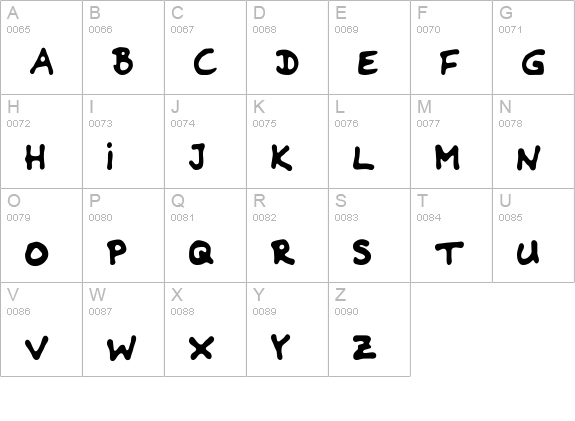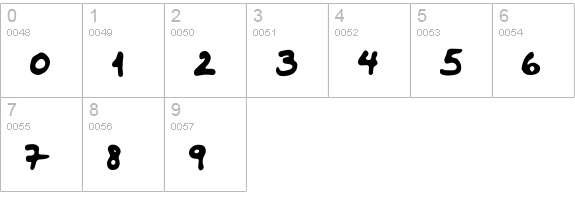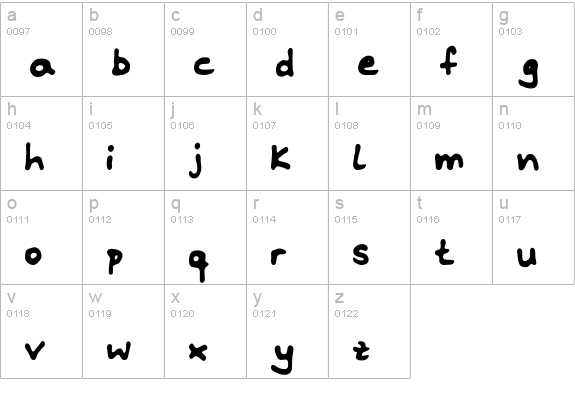
Riddleprint Font Details
Introducing Riddleprint font, a stunningly unique typeface that will leave a lasting impression on any project. With its captivating and mysterious design, Riddleprint font adds an air of intrigue and enigma to your creative endeavors. This font is not only visually striking, but it is also incredibly versatile. Whether you're working on a logo, branding materials, invitations, or even a website, Riddleprint font will effortlessly elevate your design to new heights. Its elegant and intricate strokes evoke a sense of sophistication and allure, making it perfect for any project that requires a touch of sophistication. What sets Riddleprint font apart is not only its breathtaking aesthetics but also its accessibility. We are thrilled to announce that Riddleprint font is freely available to download at FontsMarket.com. This means that you can effortlessly incorporate this enchanting typeface into your projects without any financial constraints. With Riddleprint font, you can unleash your creativity without worrying about the cost. Whether you're a professional designer or someone who simply appreciates the power of beautiful typography, this font is a game-changer. Its seamless integration into your workflow will undoubtedly inspire you to push the boundaries of your creativity and achieve stunning results. So why wait? Visit FontsMarket.com today and discover the magic of Riddleprint font. Download it for free and embark on a captivating journey of design possibilities. Let Riddleprint font be the secret weapon in your creative arsenal, and watch as it transforms your projects into works of art.